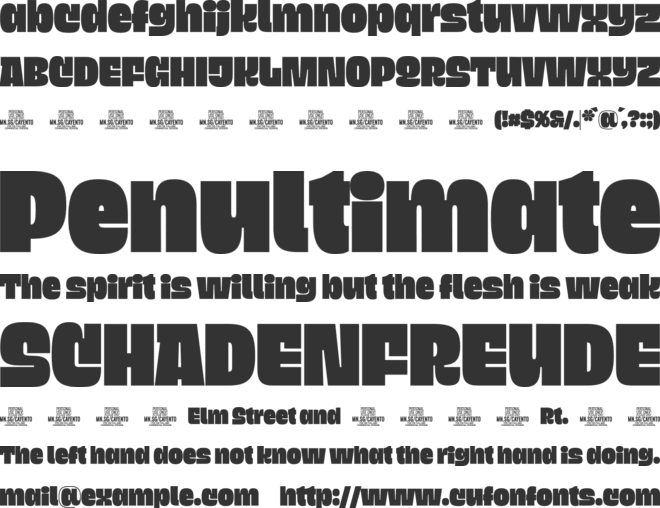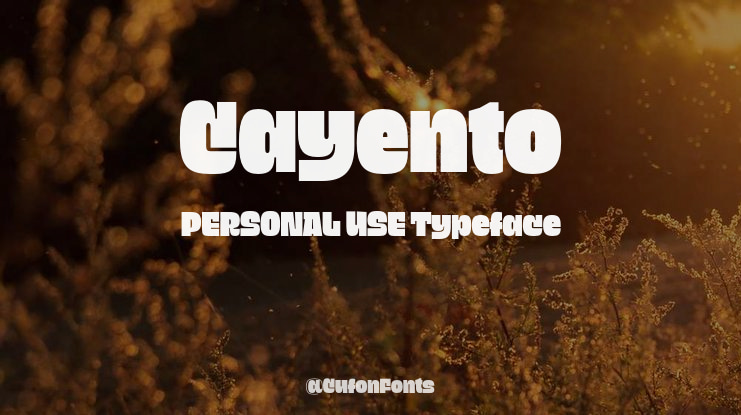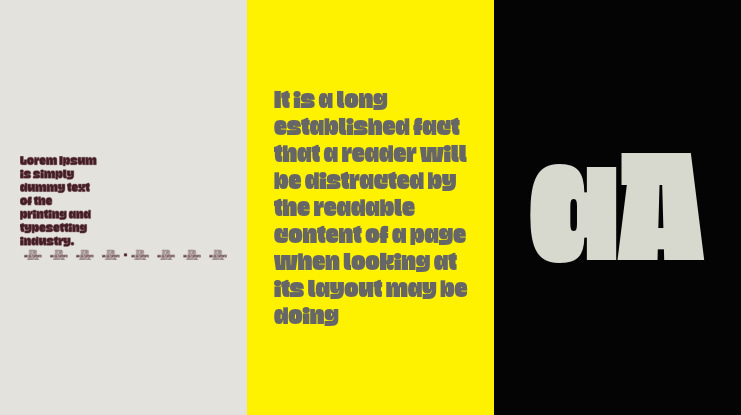
Cayento PERSONAL USE Font Family
NOTE: This font is for PERSONAL USE ONLY!To purchase a commercial license, visit:https://www.mansgreback.com/product/cayentoCayento is a bold display typeface that carries a powerful weight and a uniquely sculpted rhythm. The font has an exaggerated blackness and compact structure that feels assertive, but each character is broken with precise cuts and flowing curves, giving it a dynamic movement. With its wide range of styles and variable capabilities, the Cayento family adapts to different visual tones.For questions, please visit https://mansgreback.com/faq